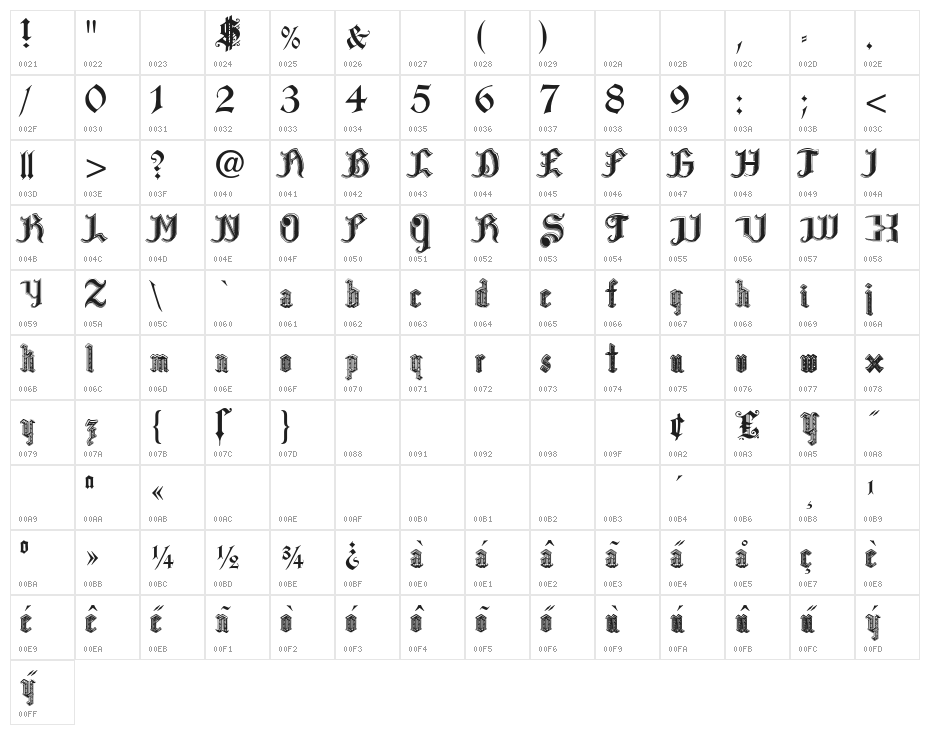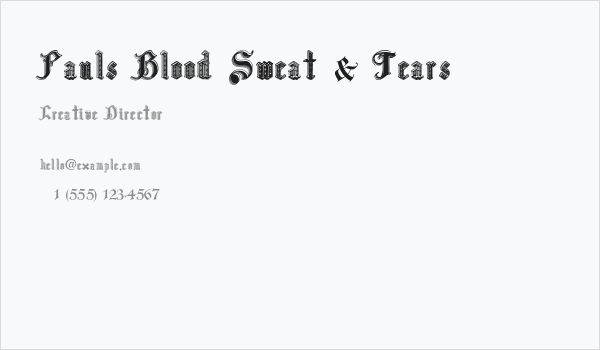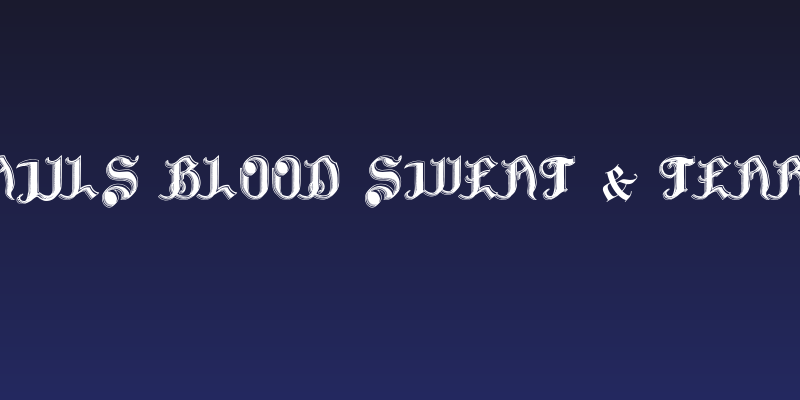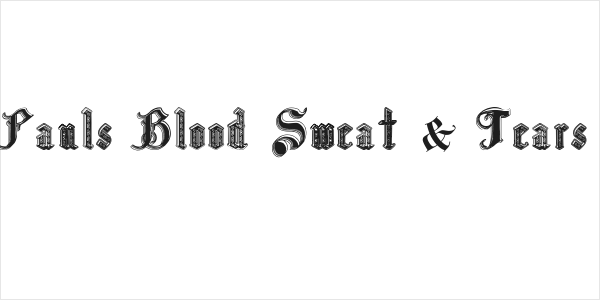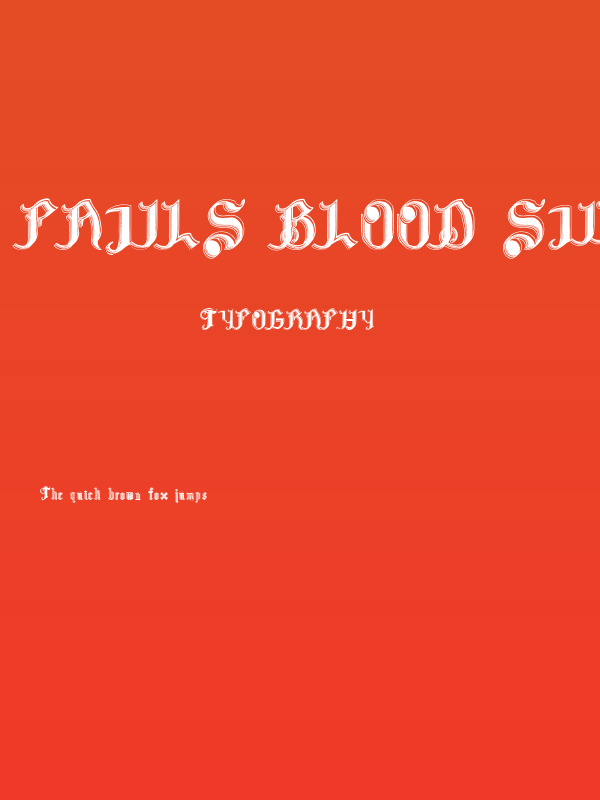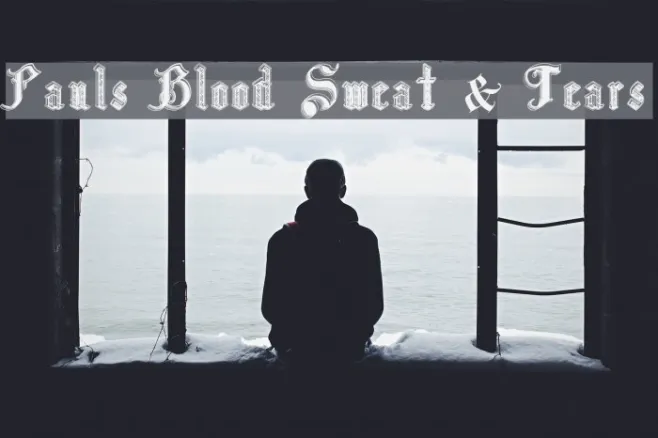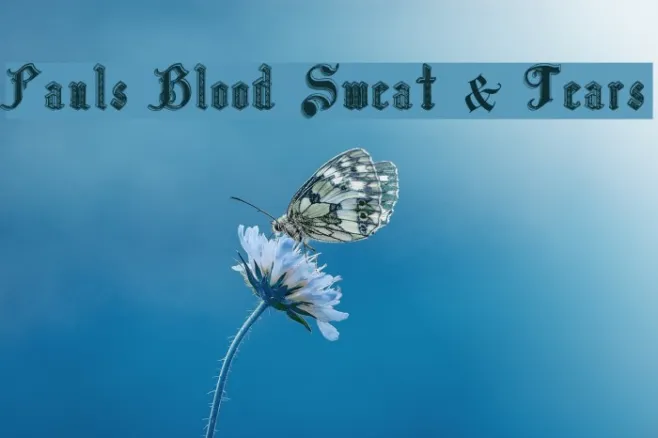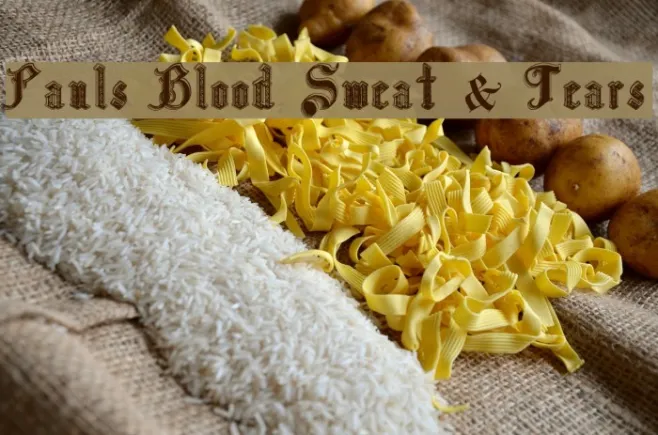
Pauls Blood Sweat & Tears Font
Pauls Blood Sweat & Tears Description
This font features a bold and intricate design reminiscent of traditional Gothic or Blackletter styles. Each character is adorned with elaborate flourishes and sharp angles, creating a sense of drama and intensity. The uppercase letters are particularly ornate, with strong vertical lines and decorative serifs. The lowercase letters maintain the same level of detail, ensuring consistency throughout the typeface. Numbers are equally stylized, with a unique flair that adds to the overall aesthetic. Special characters are designed to match the elaborate style, making this font suitable for projects that require a historical or medieval touch.
| Use Case | Logos, Headlines, Decorative purposes |
| Proposed Projects | Ideal for use in branding, posters, book covers, or any project requiring a medieval or historical theme. |